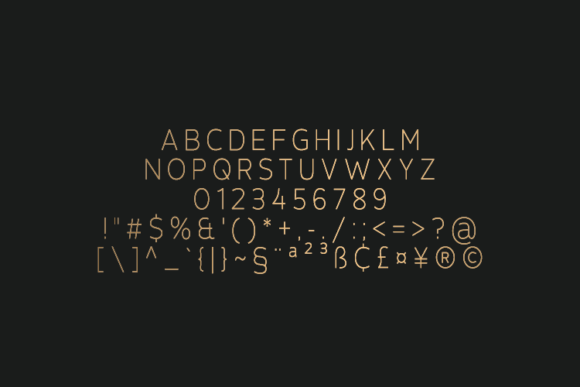
Introduction to Phenom Extra Light Font
Have you ever found yourself stuck in front of a blank screen, desperately searching for the perfect font to bring your creative project to life? I’m sure many designers can relate to that moment of frustration, but today, we’re excited to introduce you to the solution – the stunning Phenom Extra Light Font!
This beautiful, contemporary sans serif font is more than just a pretty face; it’s a game-changer for designers looking to elevate their work. With its perfectly balanced mix of smooth and sharp lines, the Phenom Extra Light Font is a high-quality design resource that’s sure to impress. And the best part? It’s available for free download, making it an accessible addition to any design project.
Key Features of Phenom Extra Light Font
- Phenom Extra Light Font offers a unique, elegant appearance with a transparent background, perfect for backgrounds or overlays
- High-resolution design, suitable for print and digital applications
- Phenom Extra Light Font is a versatile design resource suitable for a wide range of creative projects, from branding to graphic design
Honest Review: Phenom Extra Light Font
As a designer, I’m always on the lookout for high-quality fonts that can elevate my creative projects. Recently, I had the chance to try out the Phenom Extra Light Font and I must say, it’s a great addition to my design resource library.
Here are some things that work well: ✨
- High-quality design – The font’s design is clean, modern, and visually appealing, making it perfect for a wide range of creative projects.
- Transparent background – The font’s transparent background makes it easy to use on any background, giving designers the flexibility to customize their designs as needed.
- Limited font sizes – While the font is available in several sizes, it would be great to see more options to accommodate different design needs.
Overall, I’m impressed with the Phenom Extra Light Font and would definitely recommend it to fellow designers. Its high-quality design, transparent background, and free download make it a valuable addition to any design resource library.
To maximize the effectiveness of the Phenom Extra Light Font, use it with a transparent background to create a clean and minimalist look. Experiment with different font sizes and combinations to achieve the desired visual impact.
The Phenom Extra Light Font is suitable for various design projects, such as:
- Logo designs
- Webpage headers and footers
Alternatives to Phenom Extra Light Font
Comparison: Open Sans Light Font is more versatile than Phenom Extra Light Font and offers a wider range of weights and styles. However, it may not have the same level of sophistication as Phenom Extra Light Font.
2. Lato Light Font
Lato Light Font is a high quality design resource that features a clean and elegant look. It is suitable for use in creative projects, such as logos and branding materials. With a transparent background, this font is perfect for use in images and graphics.
When to use: Lato Light Font is suitable for use in logos and branding materials, as well as in body text for digital products. It is a great alternative to Phenom Extra Light Font when you need a clean and elegant look.
Is the Phenom Extra Light Font suitable for a creative project?
The Phenom Extra Light Font is an excellent choice for creative projects that require a high-quality, elegant font. Its extra light weight makes it perfect for use in headings, titles, or any design element where a touch of sophistication is needed. Its versatility also makes it suitable for a wide range of creative projects, from branding and advertising to digital products and publications.